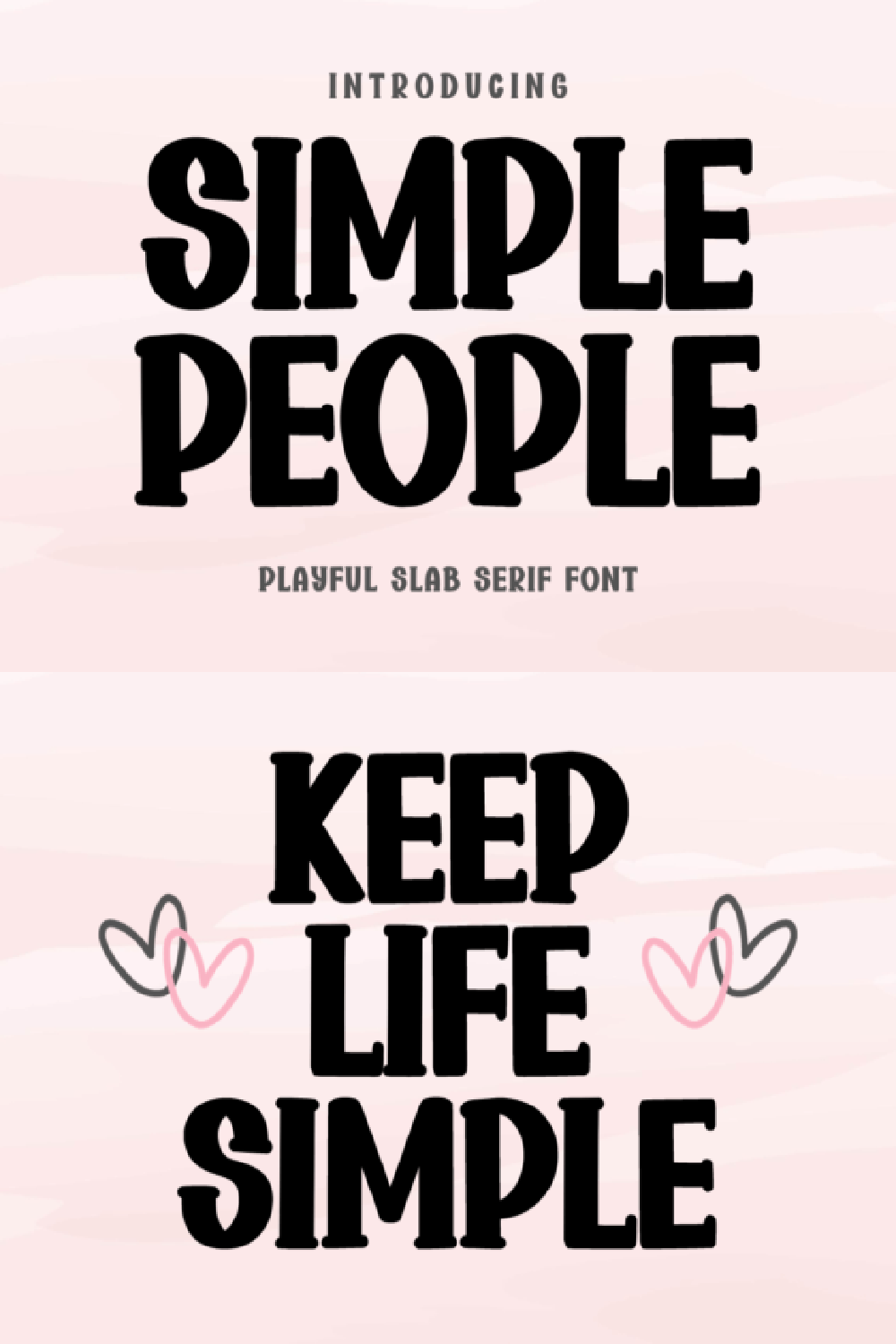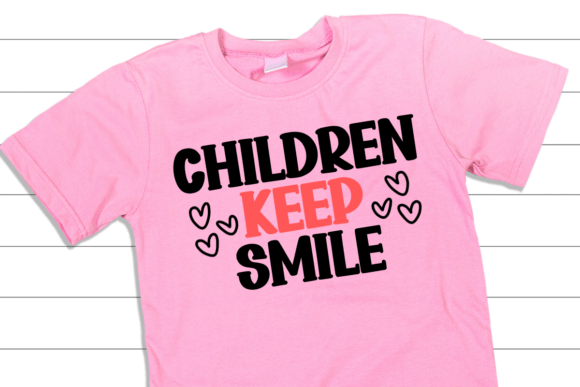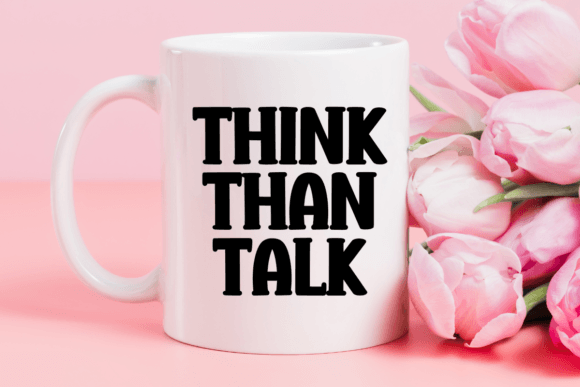
Simple People Font: A Playful Slab Serif for Eye-Catching Headlines!
About the Simple People Font
Let us introduce you to Simple People Font, where timeless design meets modern craftsmanship. Simple People is a thick and playful slab serif font. The wide characters and chunky serifs make this font ideal for eye-catching designs. You can use it for headlines, t-shirt typography, banners, product labels, and many more.
Simple People Font Usage Examples